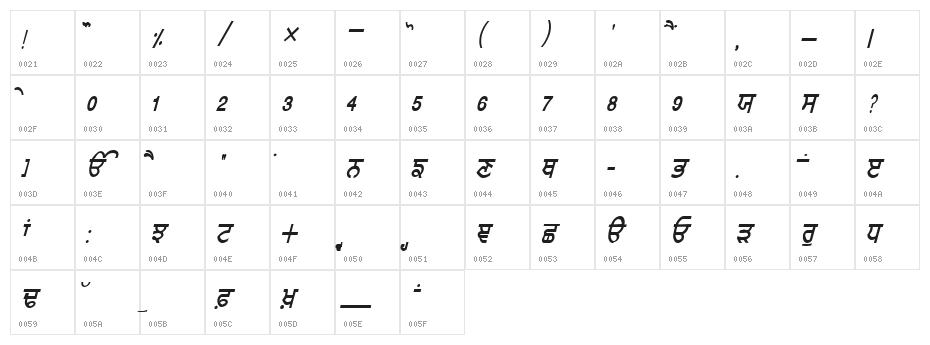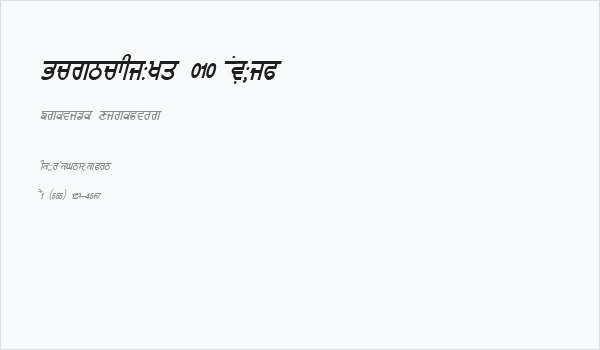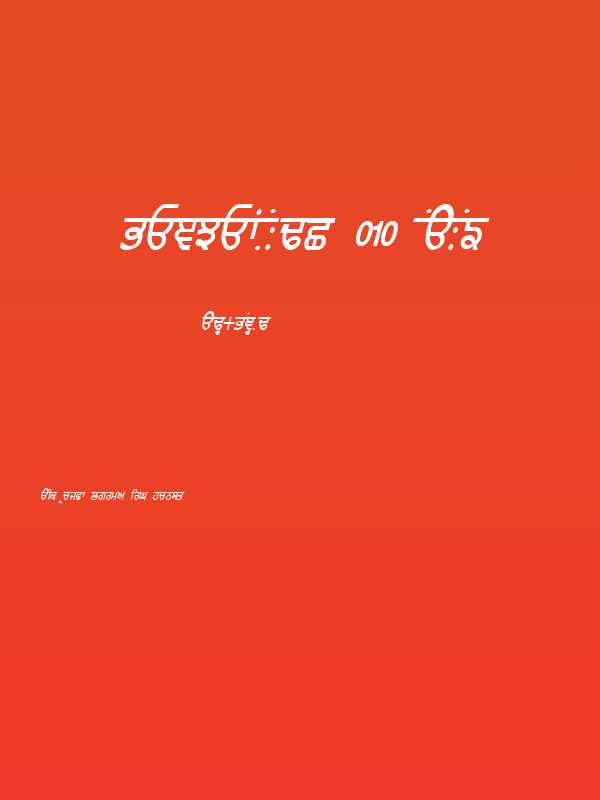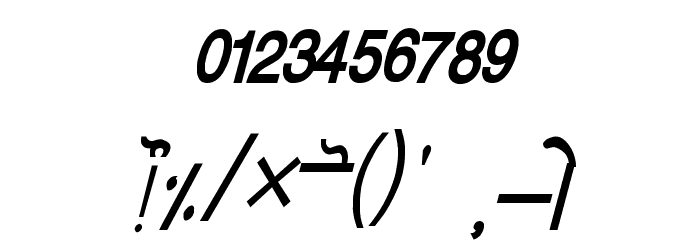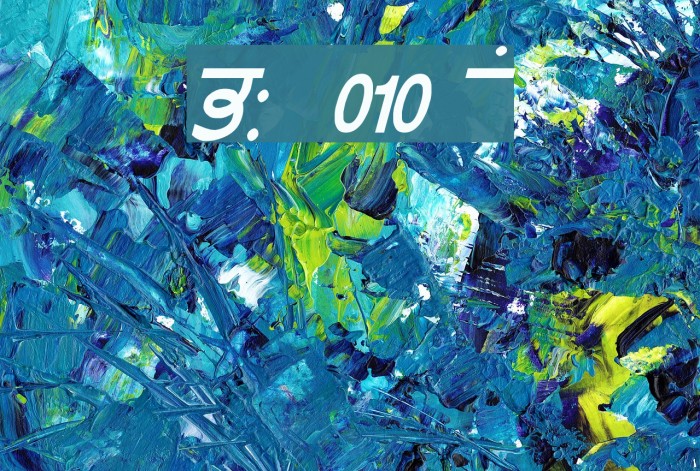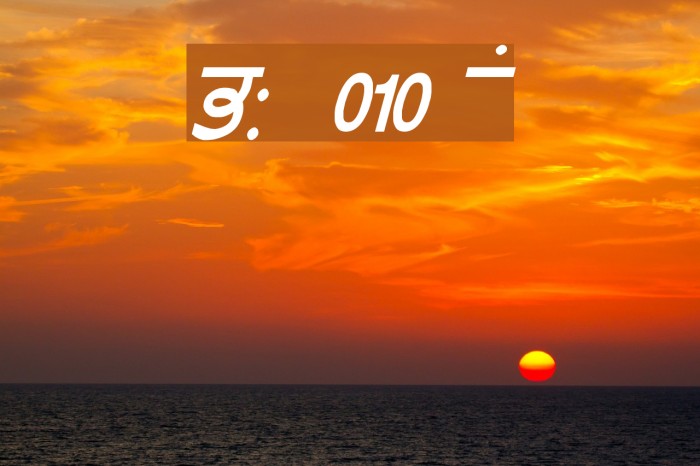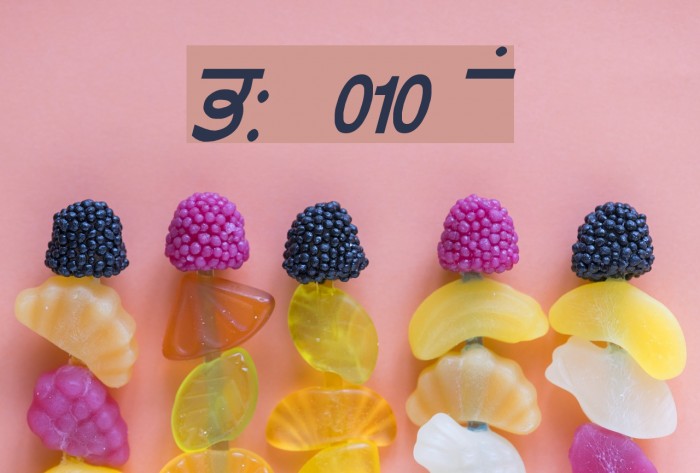
GurmukhiLys 010 Italic Font
GurmukhiLys 010 Italic Description
This font features a distinctive italic style with a flowing and dynamic appearance, characteristic of the Gurmukhi script. The characters are elegantly slanted, providing a sense of movement and fluidity. The numerals are clear and consistent with the overall style, maintaining readability. Special characters are designed to complement the script's aesthetic, ensuring a cohesive look. The font's design balances traditional script elements with a modern twist, making it suitable for various applications.
| Use Case | Headlines, Body text, Cultural projects |
| Proposed Projects | Ideal for cultural publications, educational materials, and artistic projects that require a traditional yet modern Gurmukhi script. |